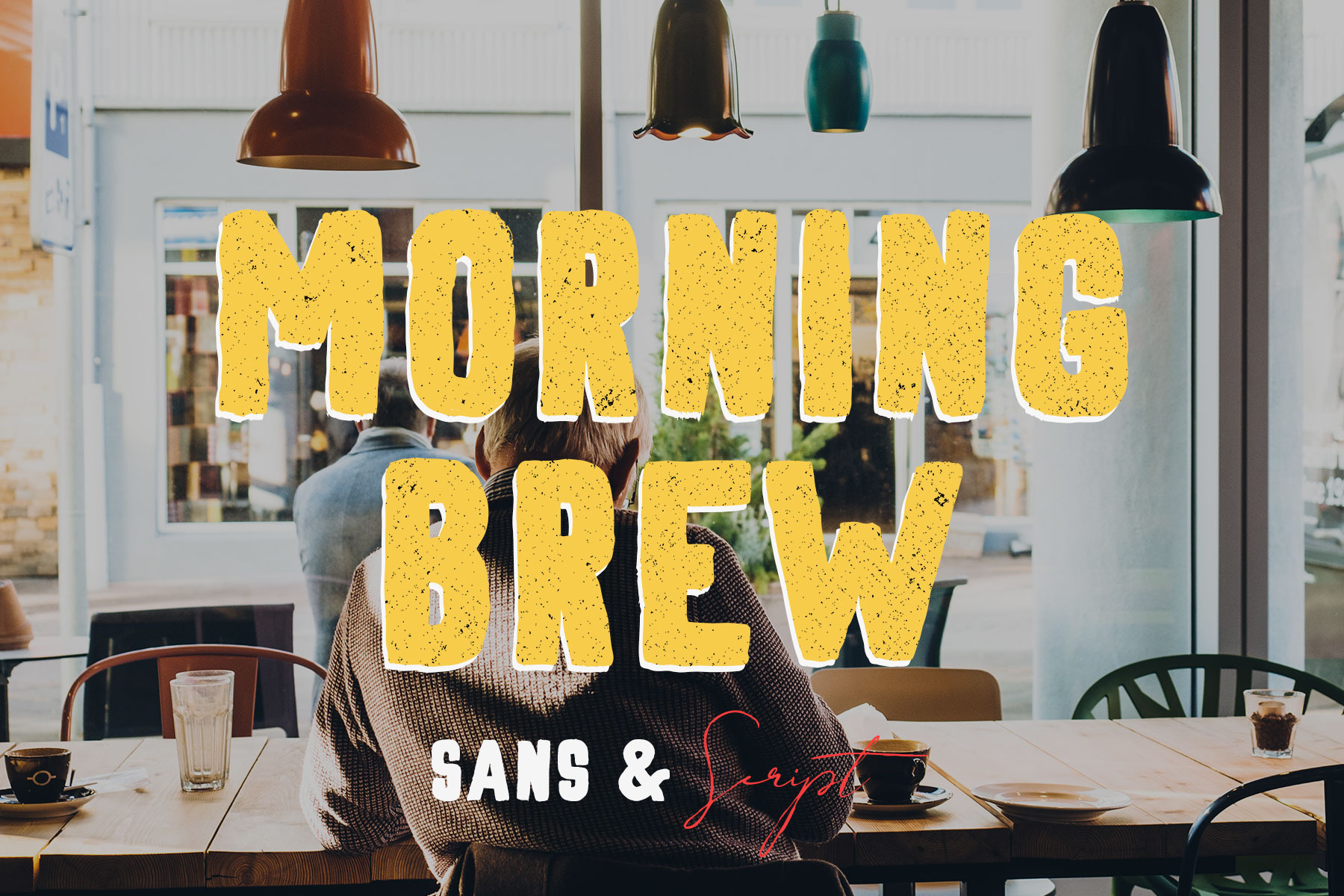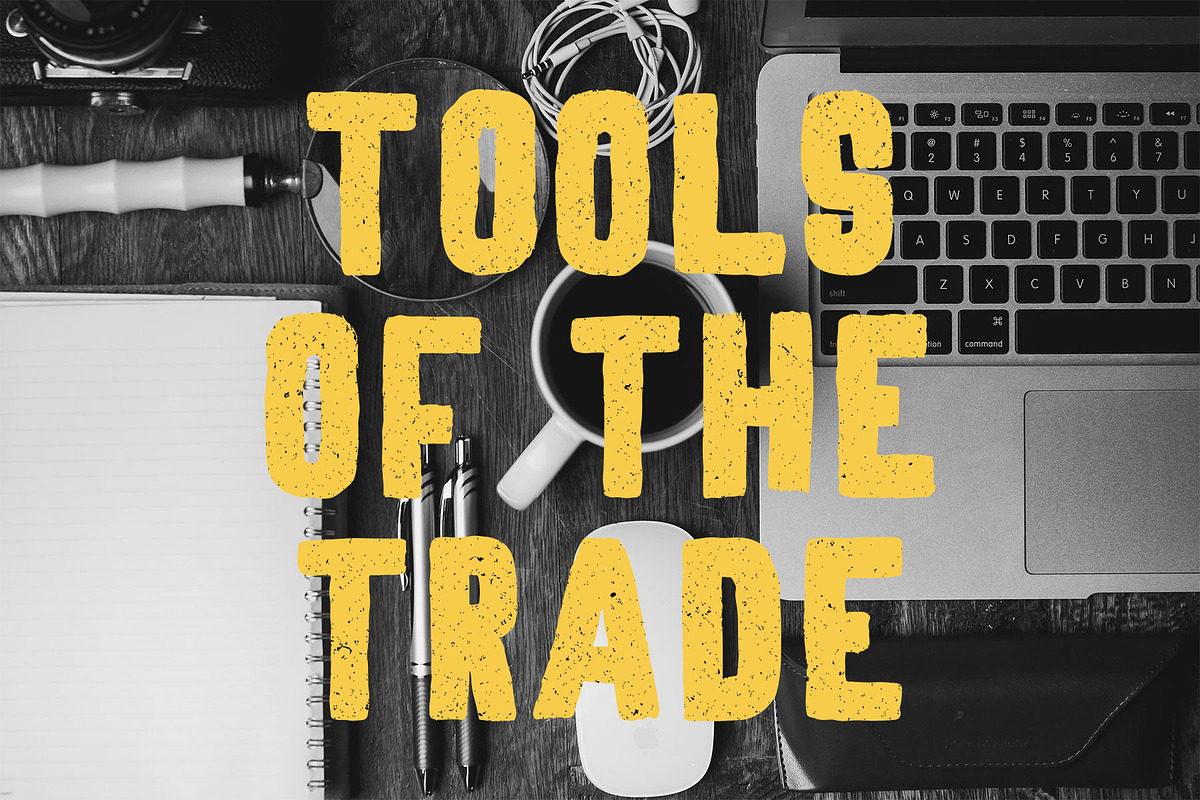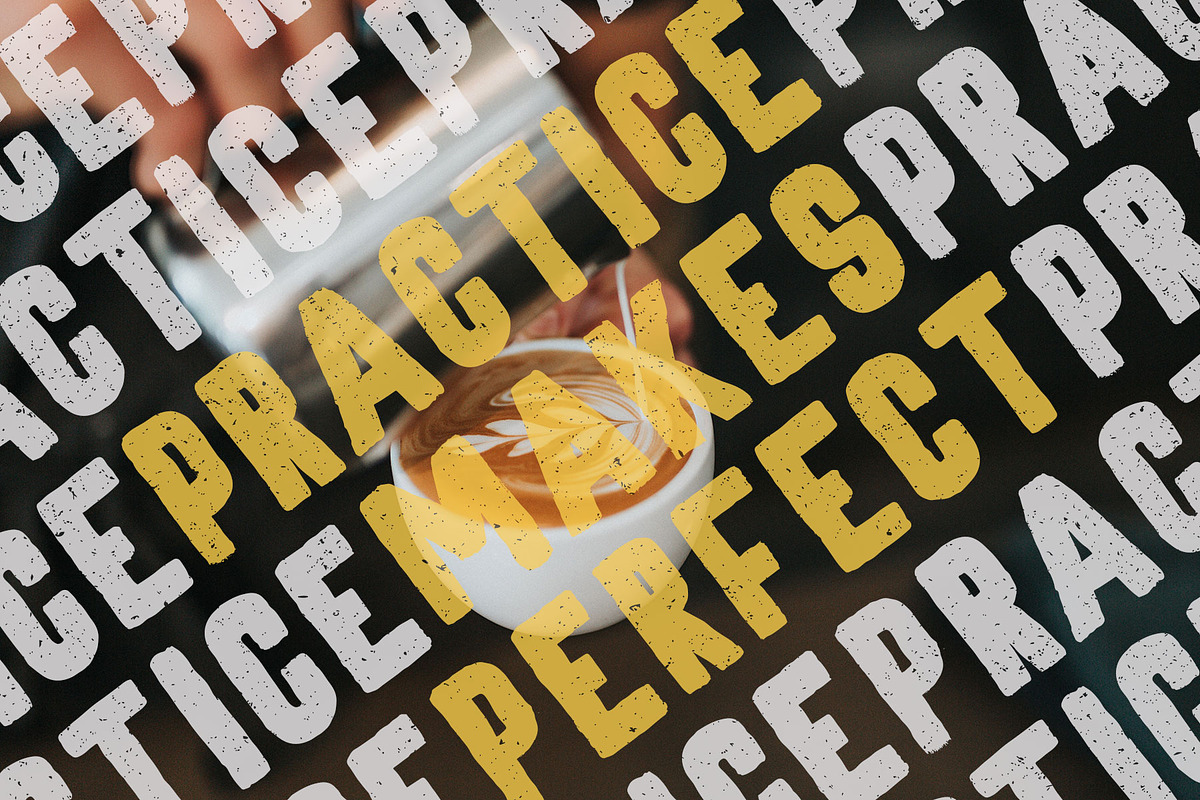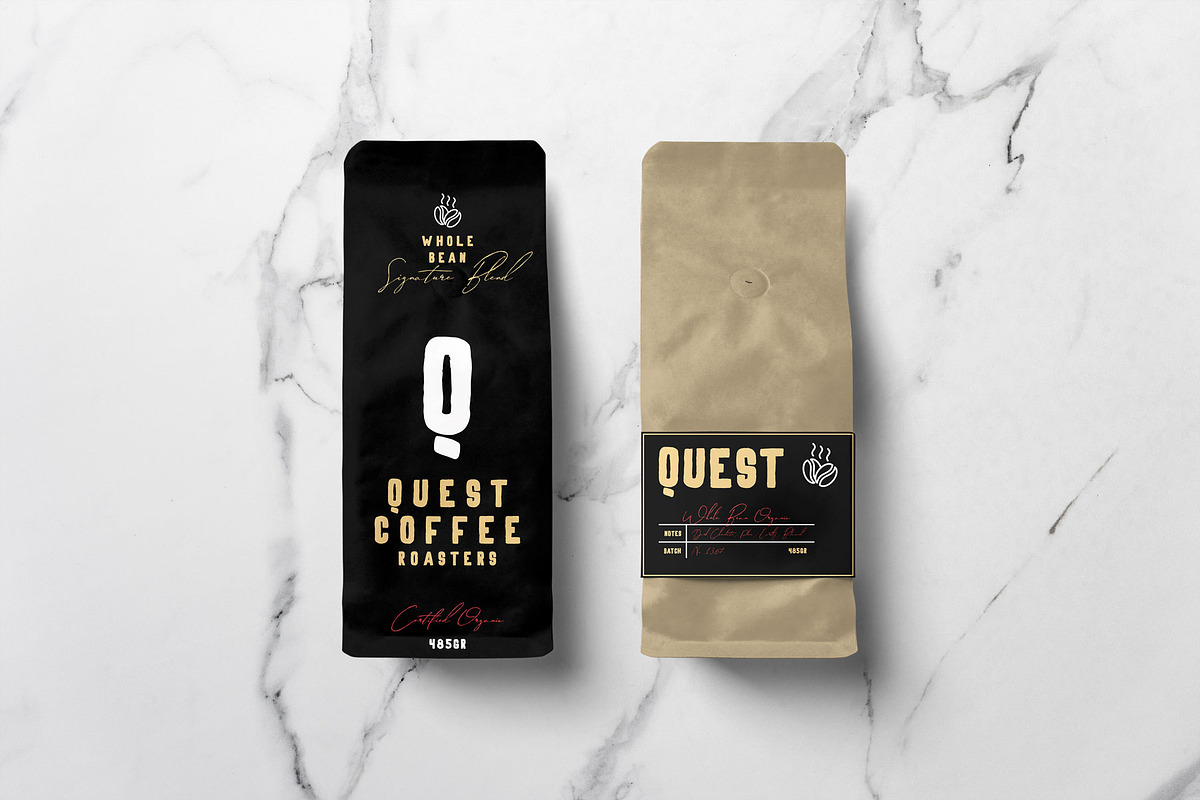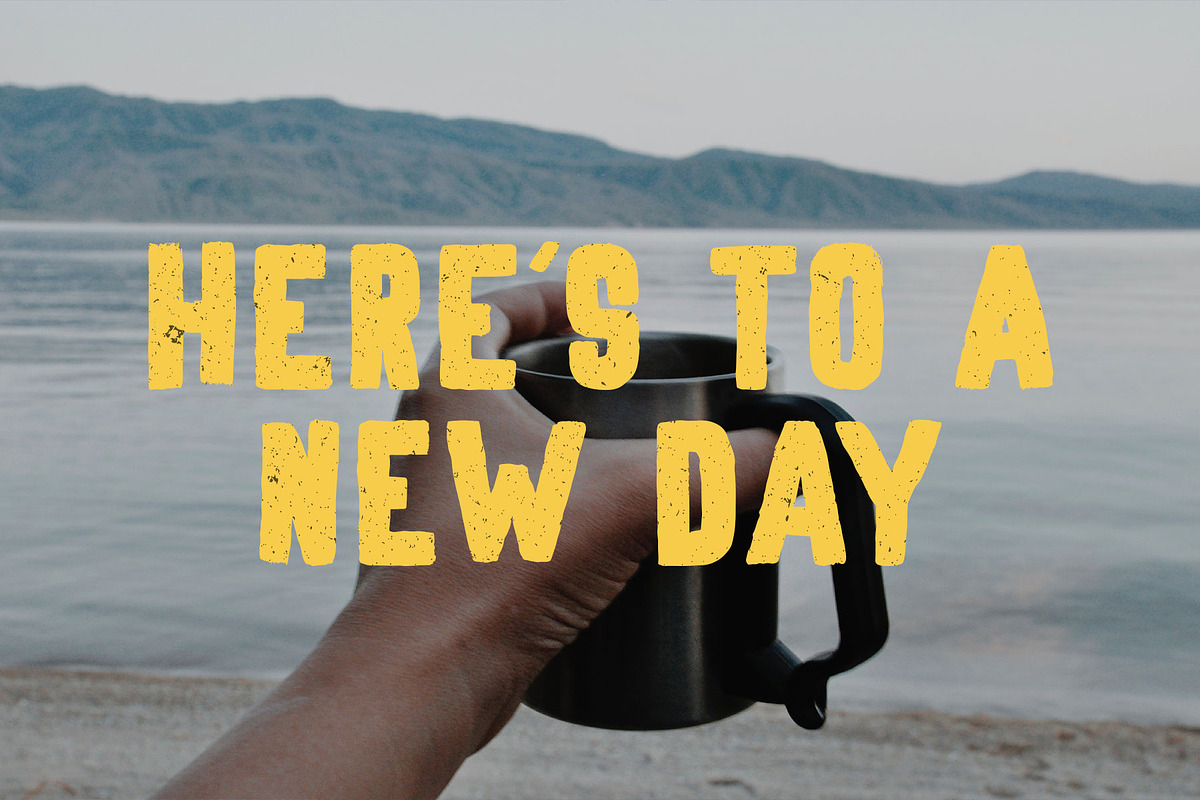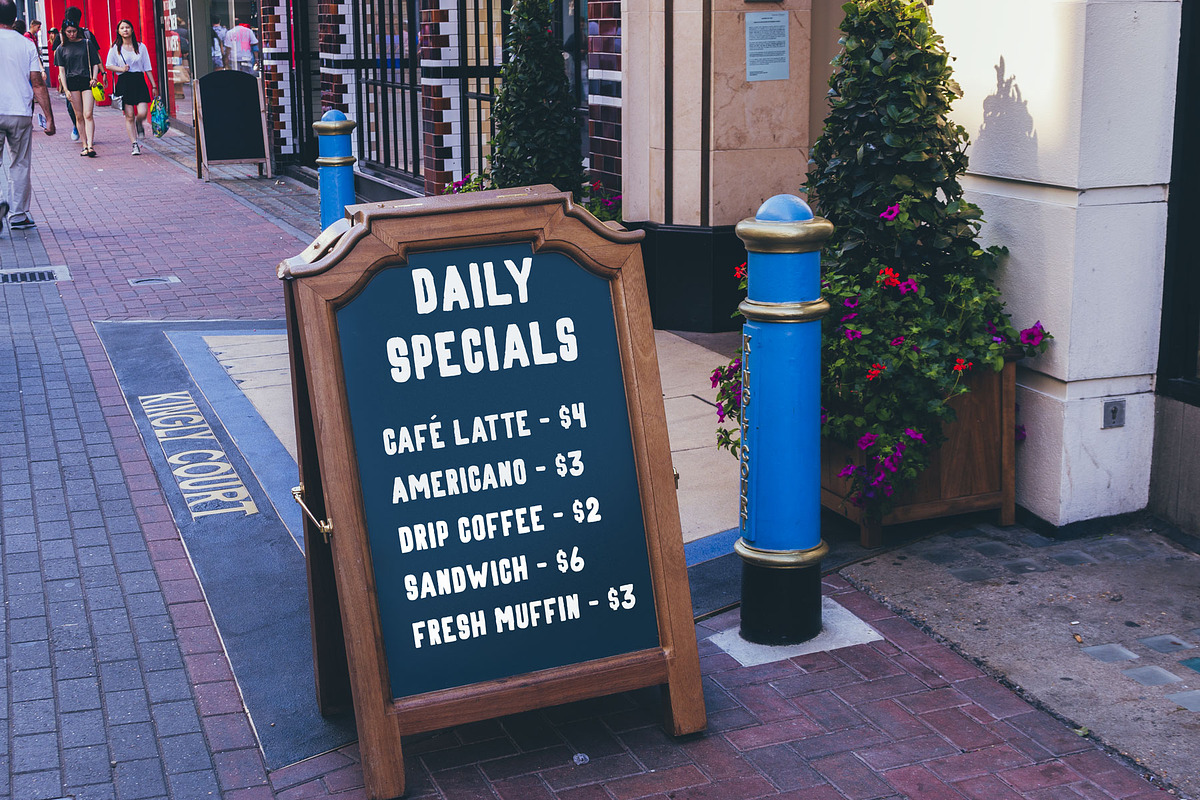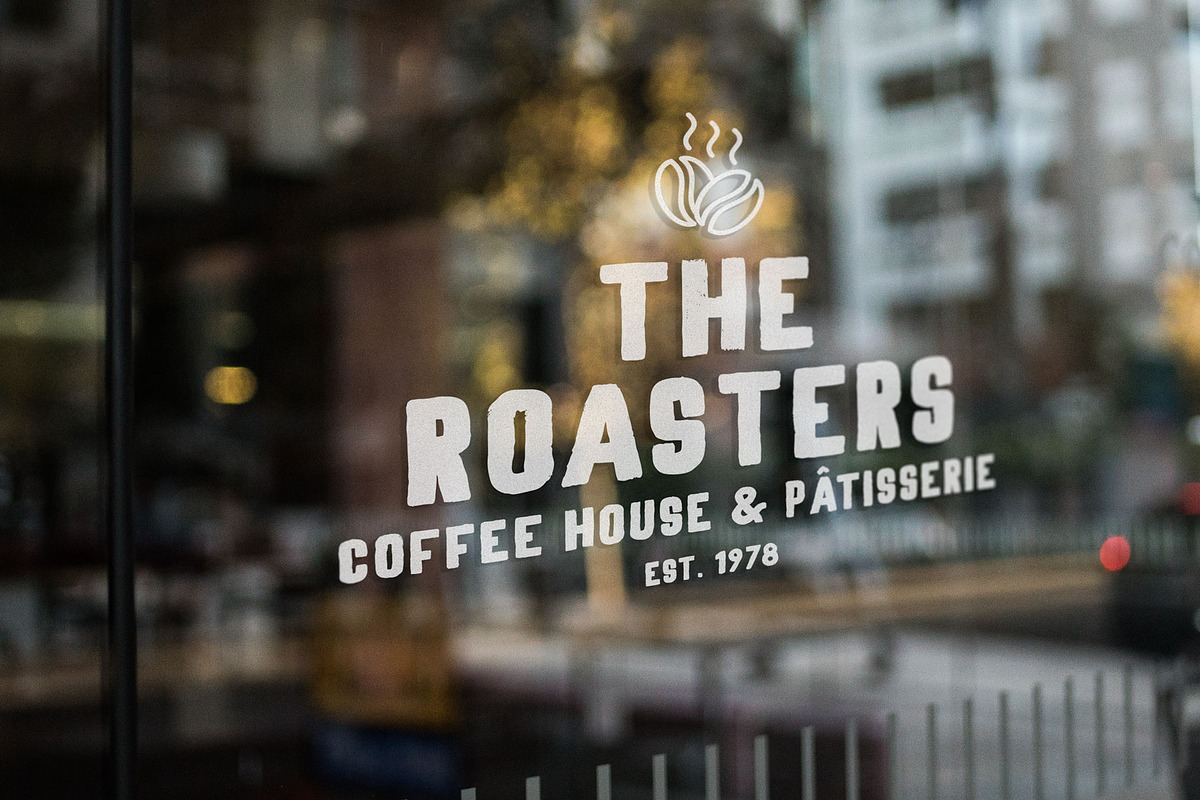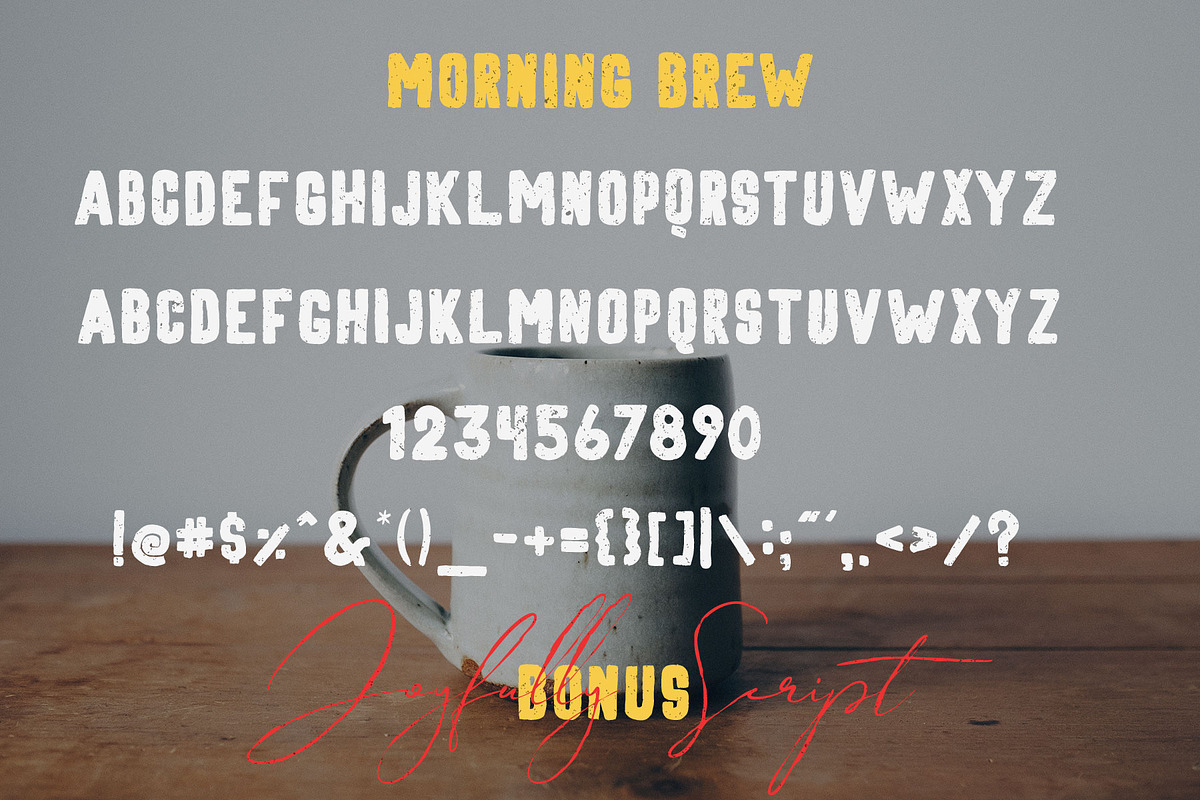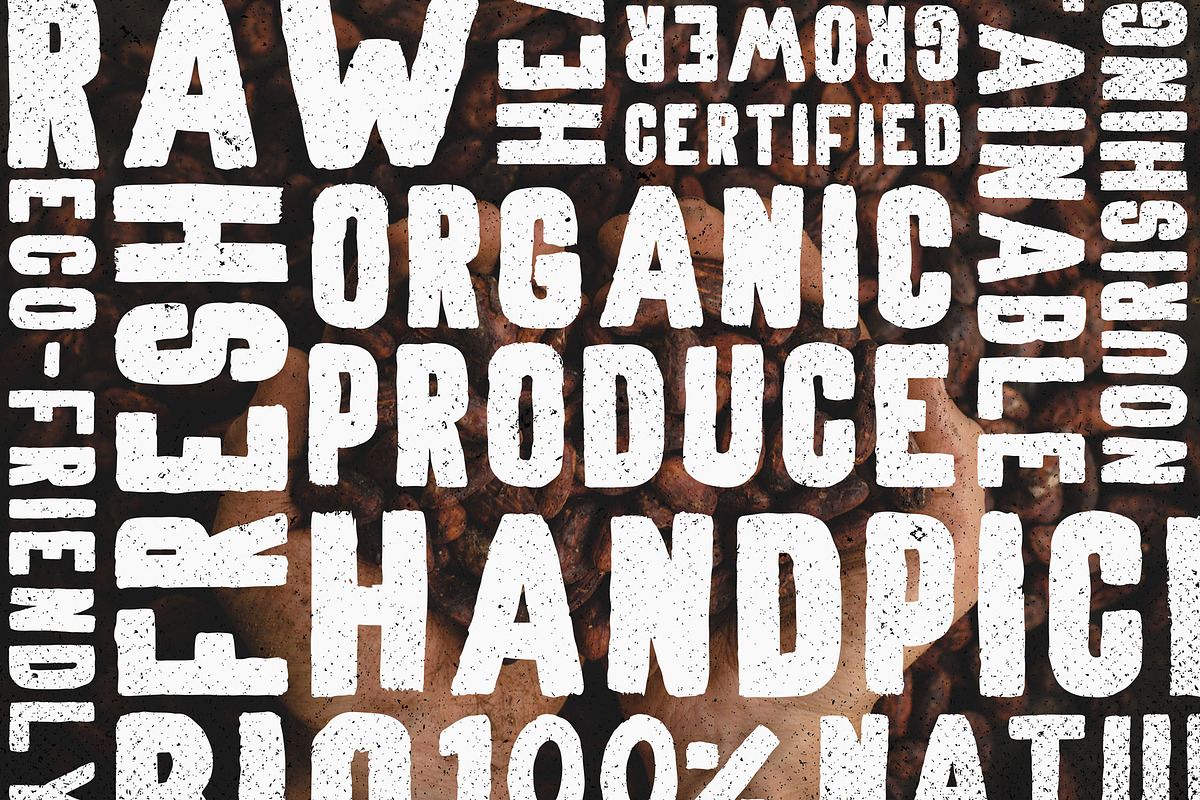
Morning Brew - Hand Painted Font
Morning Brew is a hand painted sans serif font that takes inspiration from nature & raw ingredients. This font’s slightly imperfect & uneven appearance works perfectly for coffee shops & restaurants, health, wellness & adventure brands, and much more. Morning Brew features 2 sets of capitals in order to achieve a truly hand painted look in your designs.
This product also includes Joyfully, a rough hand drawn script font that pairs perfectly with Morning Brew. Here’s to a well caffeinated day!